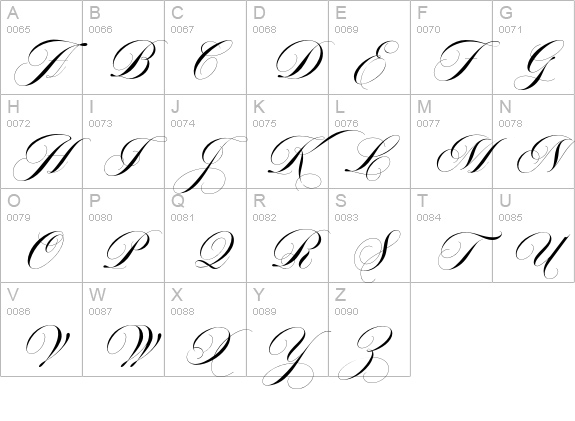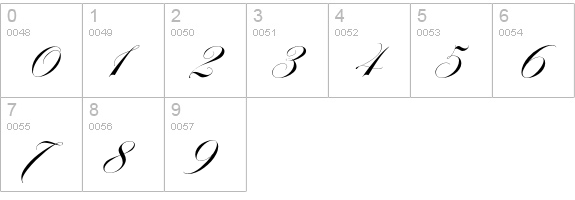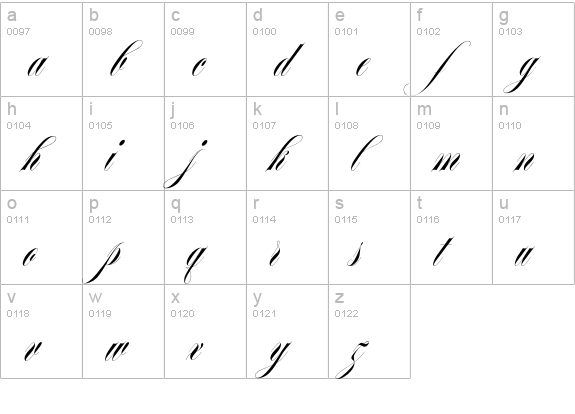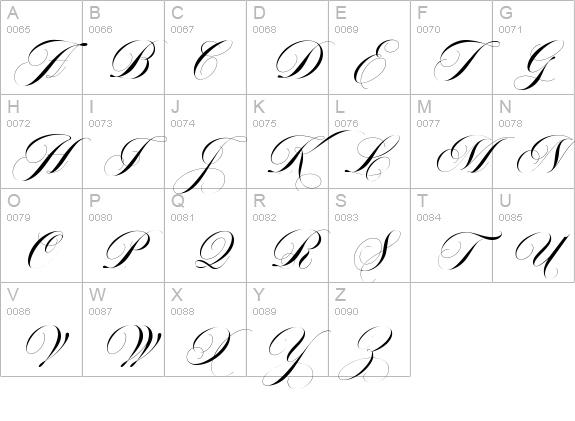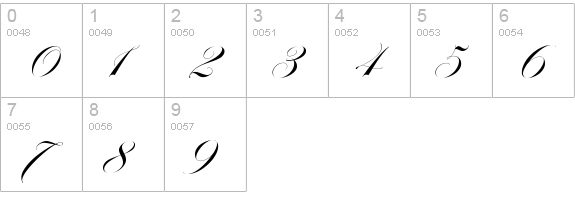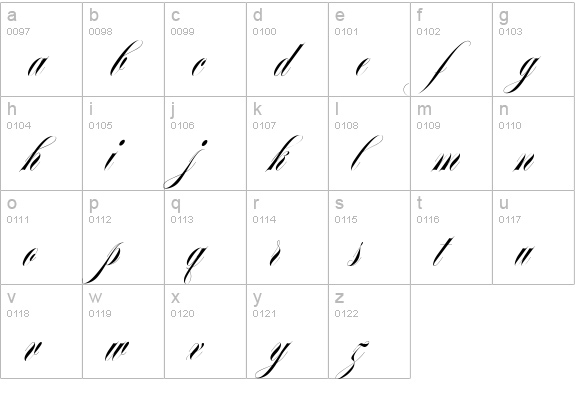
Introducing Erotica Small Pro font, a sleek and sensual typeface designed to add a touch of sophistication to your projects. With its elegant curves and alluring letterforms, Erotica Small Pro exudes a sense of intimacy and passion that is perfect for romantic or daring designs. This exquisite font is not only visually captivating but also versatile, making it suitable for a wide range of creative applications. Whether you are designing a wedding invitation, a fashion magazine spread, or a luxurious branding project, Erotica Small Pro is sure to make a bold statement. And the best part? Erotica Small Pro is available for free download at FontsMarket.com, allowing you to access this premium font without breaking the bank. Don't miss out on the opportunity to elevate your designs with the enchanting allure of Erotica Small Pro. Download it today and let your creativity run wild.